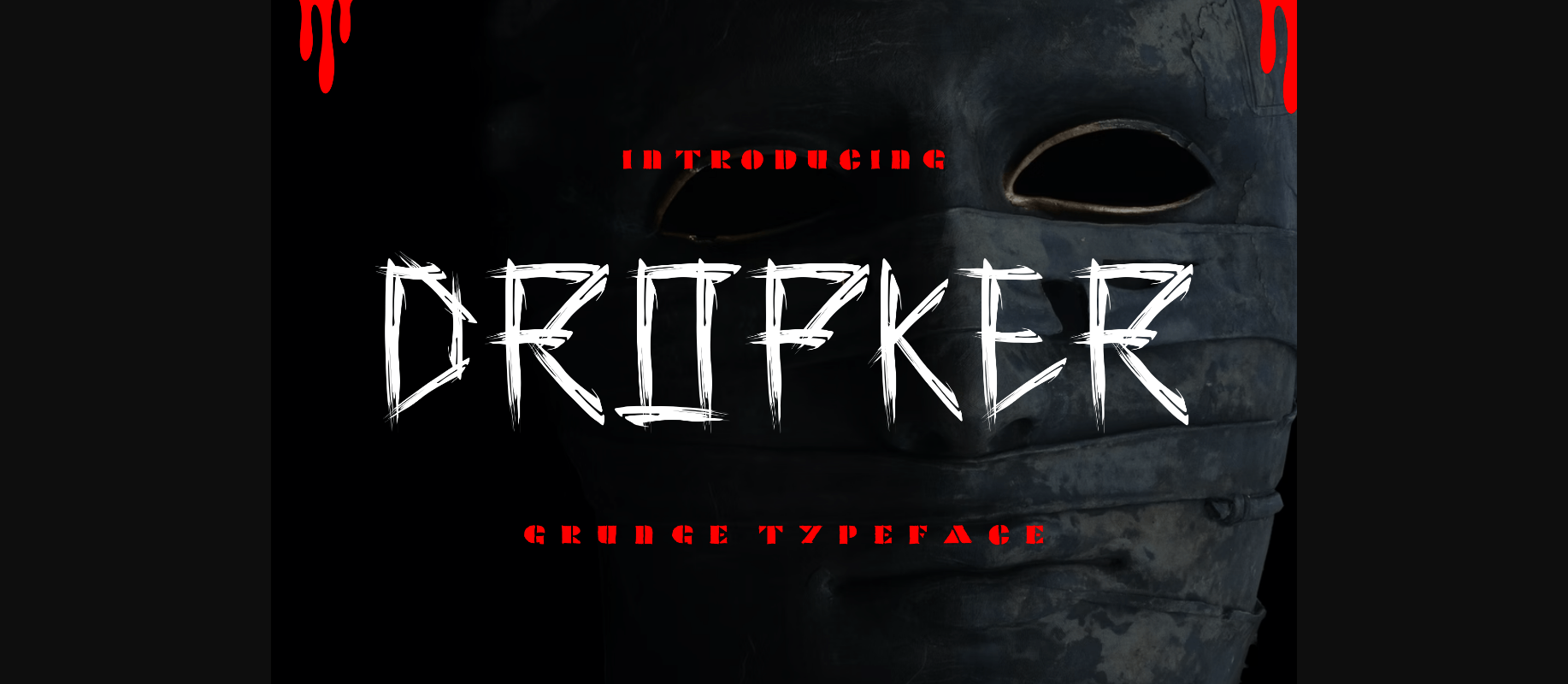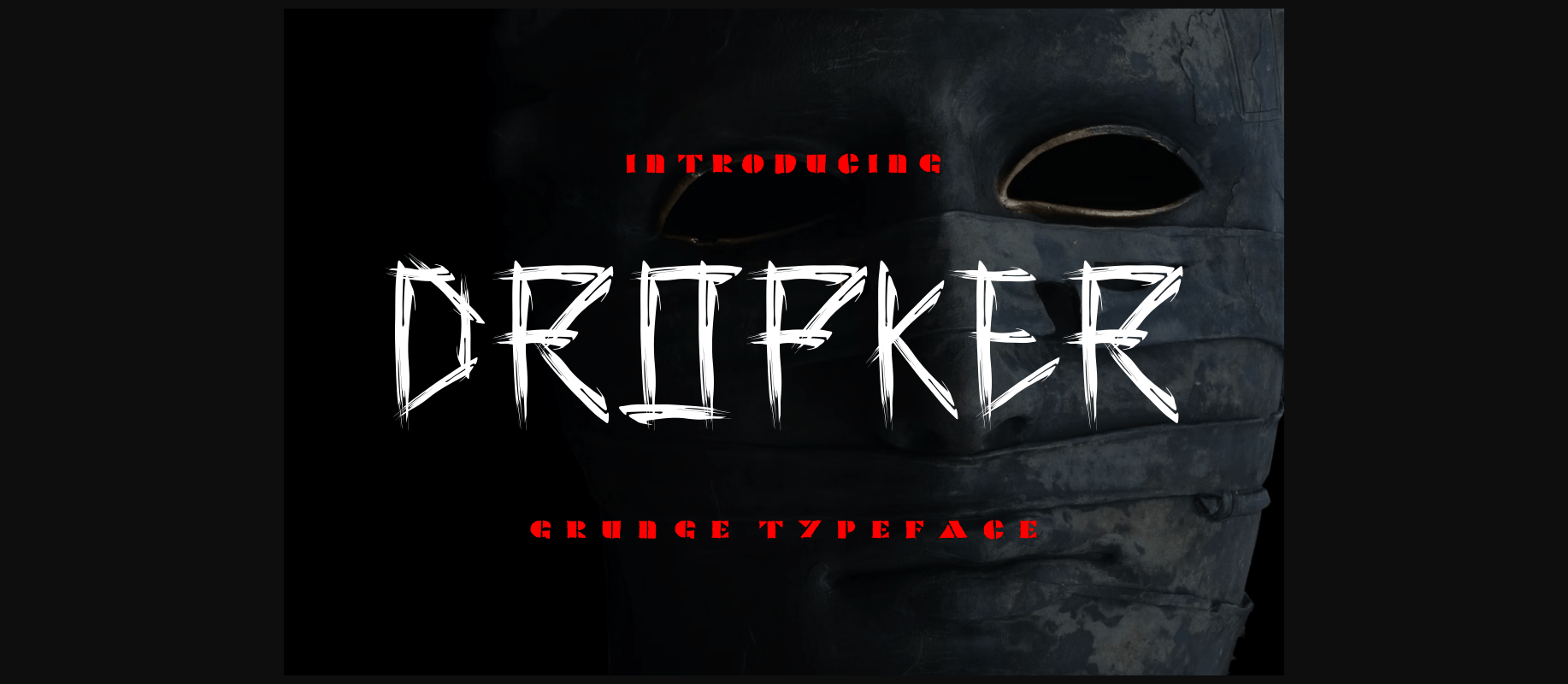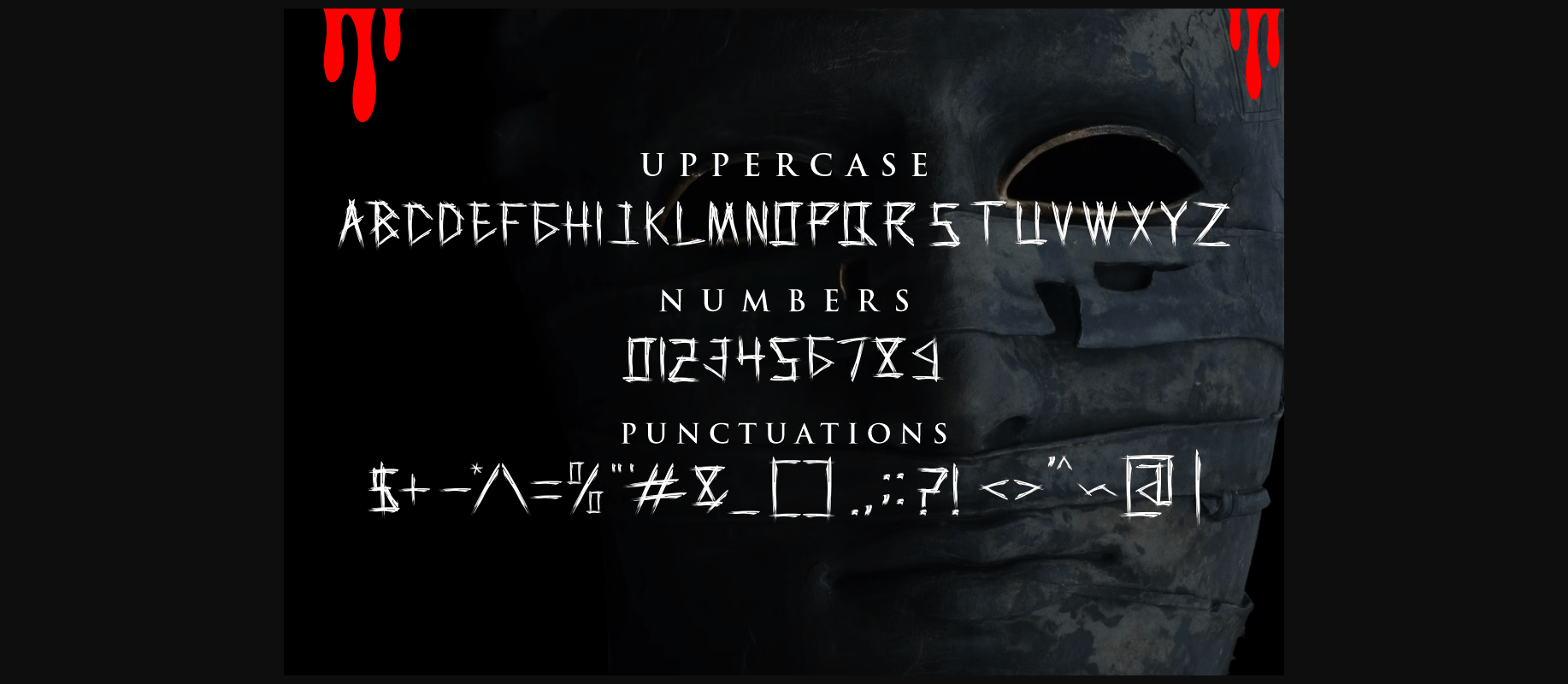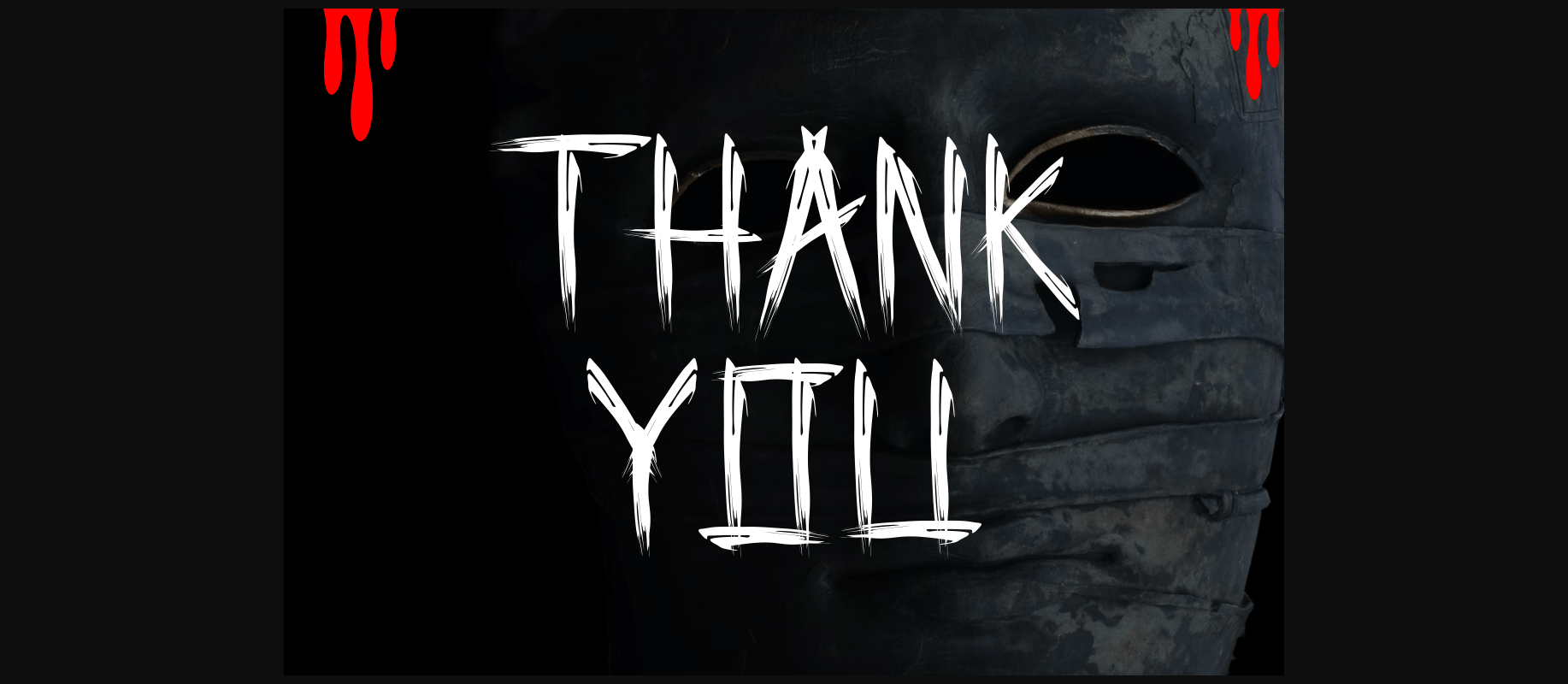
About Dropker Font
Dropker is a unique decorative font that feels mysterious and has a spooky handmade vibe. This font is perfectly suited for a wide variety of projects, such as signature, stationery, logo, wedding, typography quotes, magazine or book cover, website header, clothing, branding, packaging design, and more.